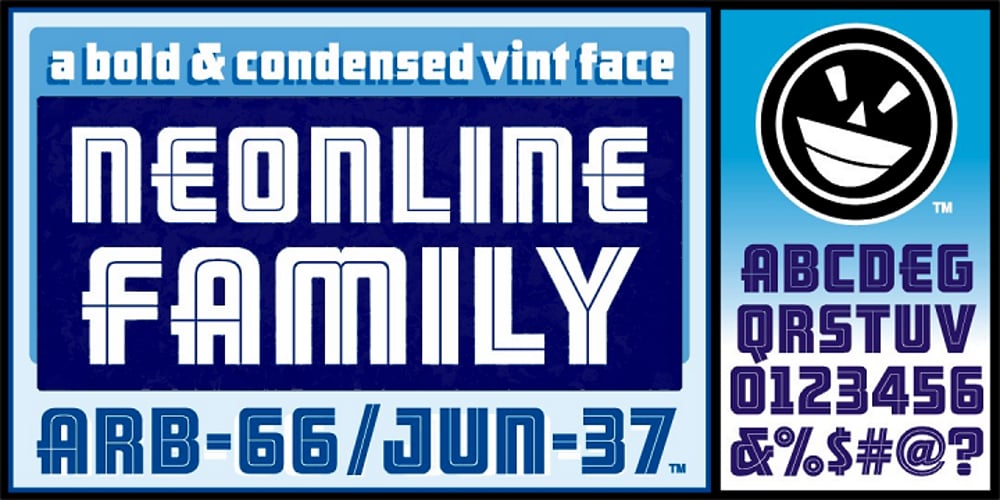
ARB 66 Neon Font Family was designed by Alf R. Becker, Michael Gene Adkins and published by The Fontry. ARB 66 Neon contains 24 styles and family package options. Beginning in January, 1932, Becker, at the request of then-editor E. Thomas Kelly, supplied SIGNS of the Times magazine’s new Art and Design section with an alphabet a month, a project predicted to last only two years. Misjuding the popularity of the “series,” it instead ran for 27 years, ending finally two months before Becker’s death in 1959, for a grand total of 320 alphabets, a nearly perfect, uninterrupted run. In late 1941, almost ten years after the first alphabet was published, 100 of those alphabets were compiled and published in bookform under the title, “100 Alphabets,” by Alf R. Becker. As published in June, 1937, this is the description that accompanied Becker’s 66th alphabet, Neonline: NEONLINE, alphabet No. 66 in Alf R. Becker’s SIGNS of the Times series, is a very bold, modern style for feature display lettering. Care should be taken in the laying out of this alphabet, and every letter should be made as bold as possible. Well that was a bit of an understatement! Fortunately, this font pak isn’t understated. After the main Neon font was finished, a ton of work went into developing alternate character ranges, a second neon effect, a layering option accessible via the styles menu, and two supplemental fonts for the headlining and text chores. And did I mention the extensive kerning? The finished result is a handy little family that can tackle of wide variety of design needs. Many font designers have tackled the task of taking Becker’s incredible achievement from paper to digital, and many claim to treat his work with care and dignity. But the Fontry’s Becker fonts remain the most historically accurate and viable treatments available, arriving in two industry-satisfying versions: CAS (Computer-Aided Signmaking) and DTP (Desktop Publishing).